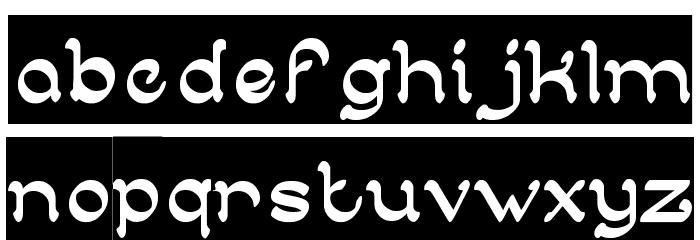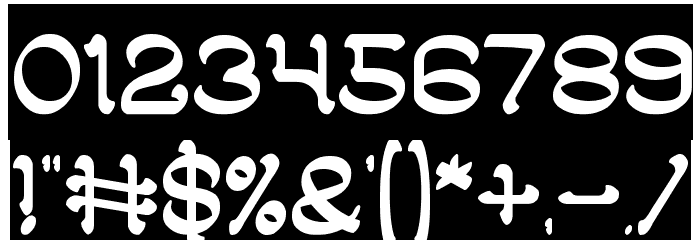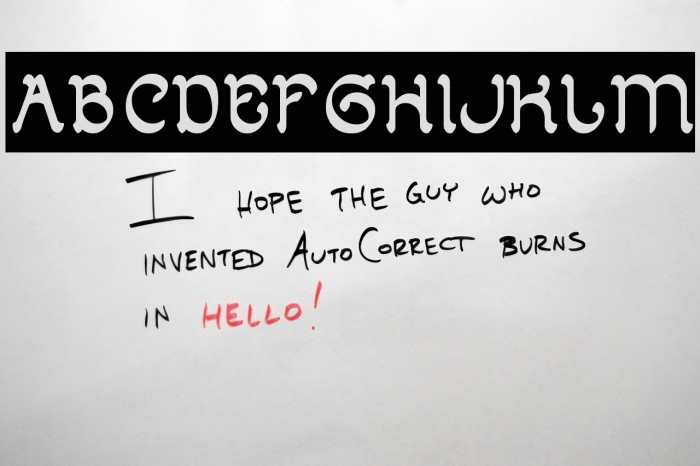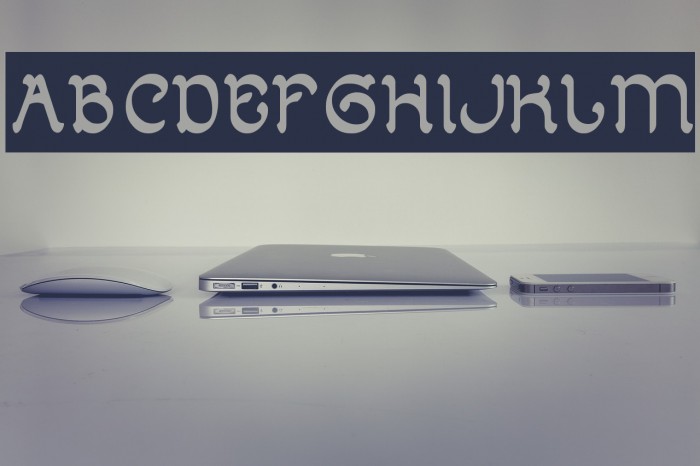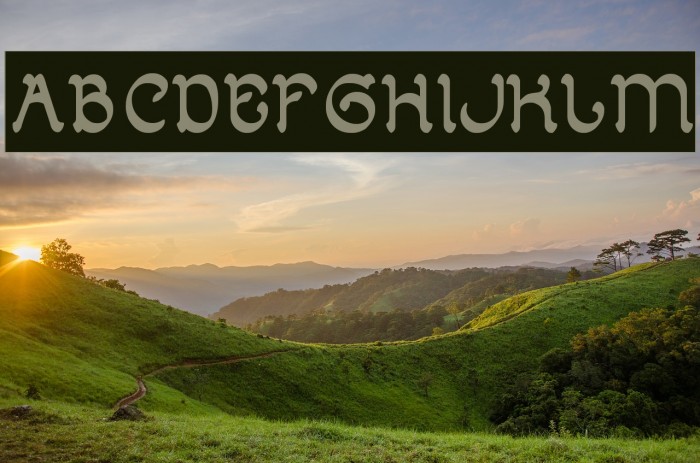
ARABIAN KNIGHT-Inverse Font
This font features a unique and decorative style with a strong influence of Middle Eastern design elements. The characters are bold and rounded, with intricate curves and flourishes that give it an exotic and ornamental appearance. The uppercase letters are particularly elaborate, while the lowercase letters maintain a consistent style with slightly less embellishment. Numbers and special characters follow the same decorative theme, ensuring a cohesive look across all glyphs. The font's distinctiveness makes it stand out, ideal for projects requiring a touch of elegance and cultural flair.
A decorative font with Middle Eastern-inspired design elements and bold, rounded characters.
- Proposed Projects: Ideal for use in branding, posters, event invitations, and any project seeking an exotic and ornamental aesthetic.